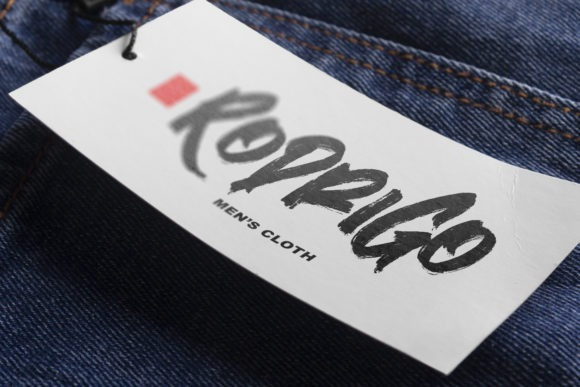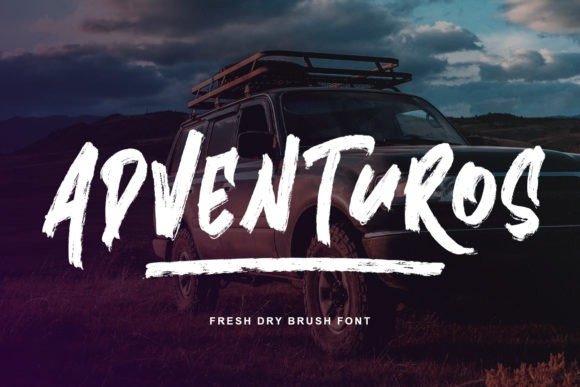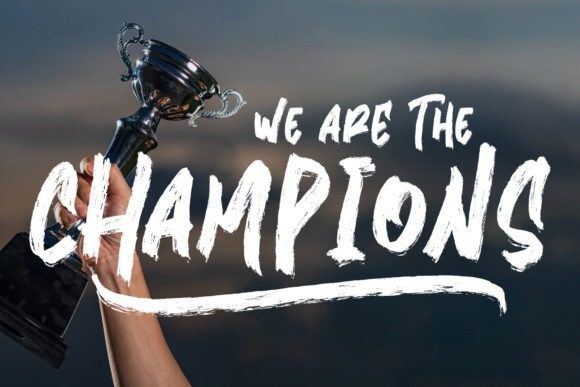
Brave Gates Brush Font
Brave Gates is a gorgeous uppercase display brush font, designed with the modern vibe. This bold brush font is perfect for anything indie, adventurous, and direct. Every swash, stroke, and curve was created to entice happiness and elegance. A real head-turner for your presentation, designs, website illustrations, and much more.
Brave Gates includes Multilingual Support to make your branding reach a global audience. Inspire your audience, clients, or guests with this beautiful, statement font.